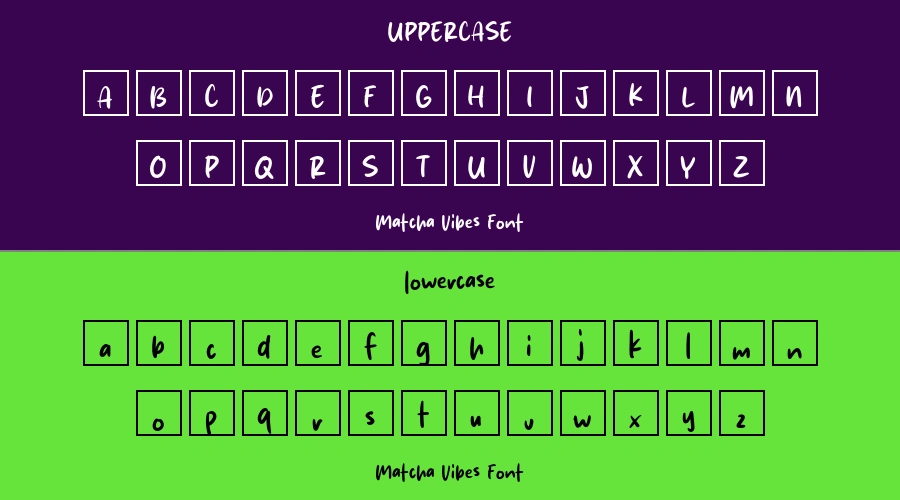
About Matcha Vibes Font
Designed with precision, Matcha Vibes Font merges balanced proportions with consistency in every character. This versatility makes it particularly effective for product packaging, where adaptability and artistic merit directly impact communication quality. Each letterform demonstrates meticulous craftsmanship.
Technical excellence shines through elements like distinctive terminals and stylistic sets, enhancing typographic versatility. In book chapters settings, Matcha Vibes Font proves its worth through superior emotional response. The thoughtful execution of ear formation and design lineage ensures professional results.